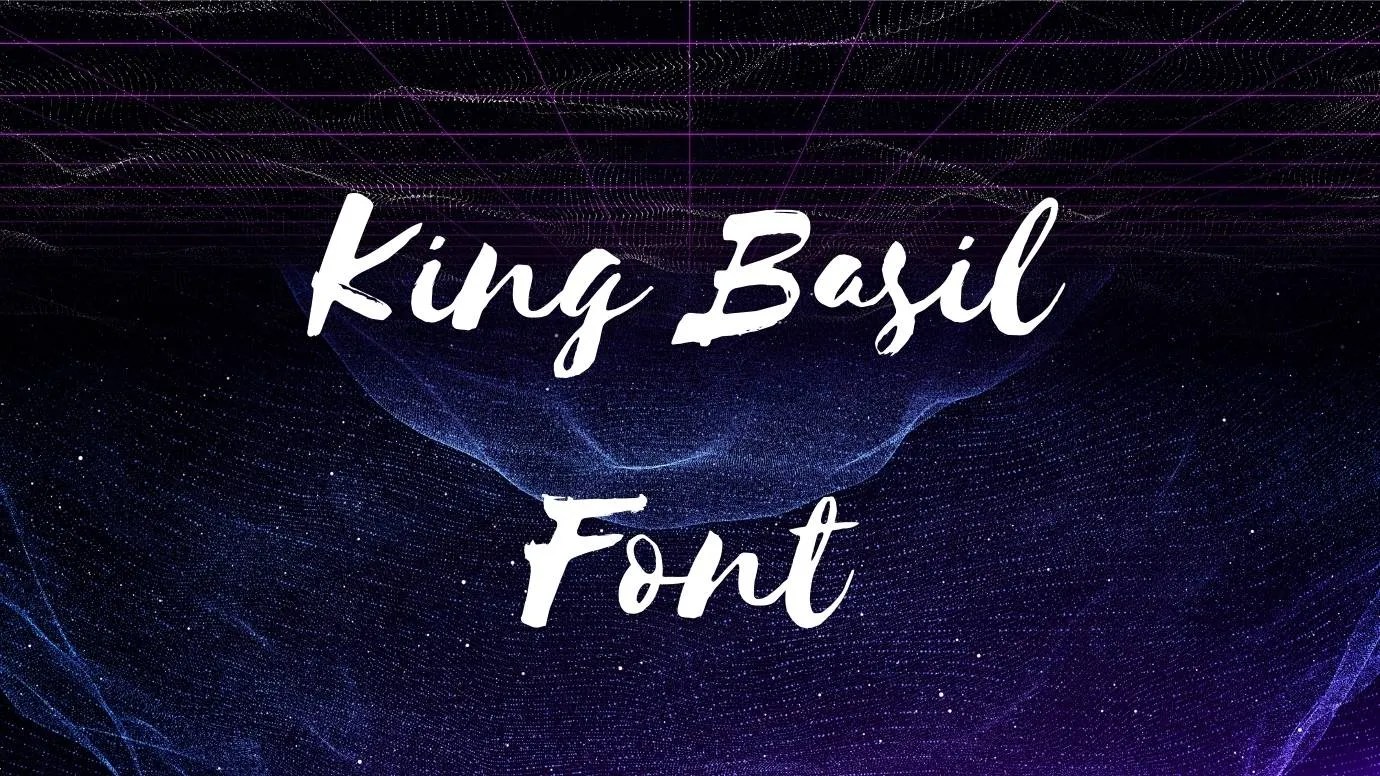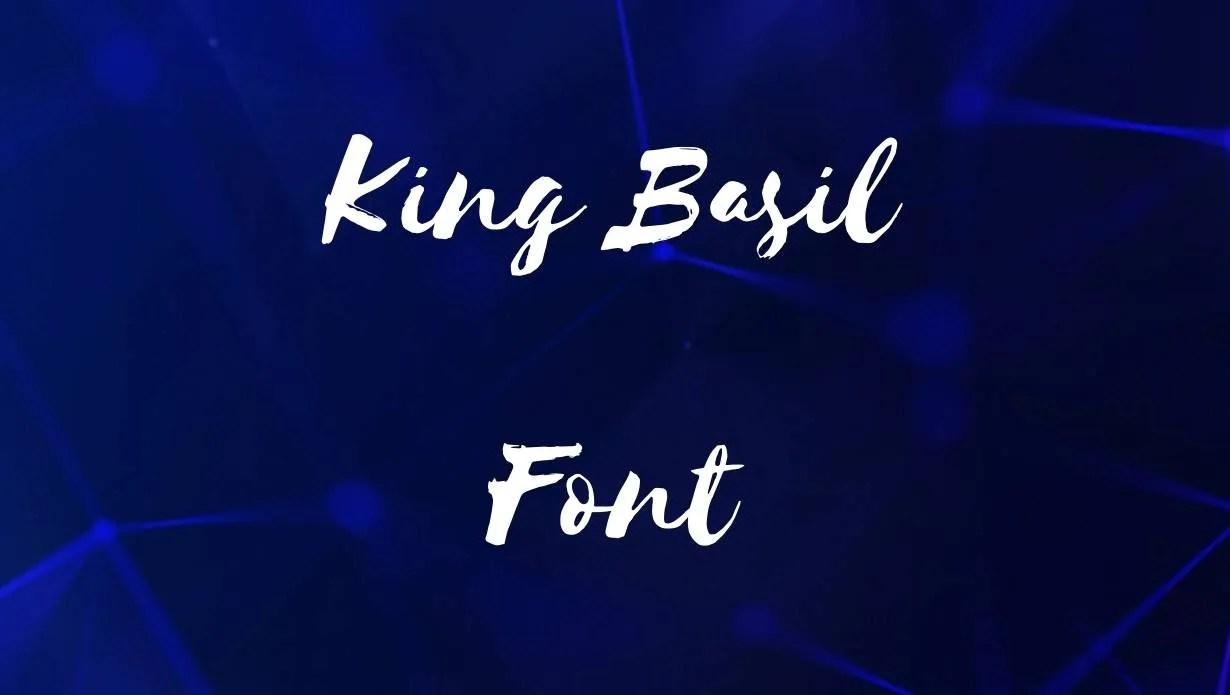
King Basil Lite Regular Font . King basil is the perfect font for all your fun designs. King basil lite is the perfect font for all your fun designs. The free king basil lite font is a beautiful handmade brush typeface created by the talented missy meyer. The free king basil lite font is a beautiful handmade brush typeface created by the talented missy meyer. King basil lite font family series mainly provide regular and other font styles. It includes both otf and ttf file formats, catering to various user. The font subfamily is regular. Click the download button to download the. You can also visit the author website, clicking here: Der font darf, laut angaben auf der. King basil’s feature set is impressive, ensuring versatility and creative freedom. View font details, character map, custom preview, downloads, file contents and more. The king basil font was designed by missy meyer.
The font subfamily is regular. You can also visit the author website, clicking here: Der font darf, laut angaben auf der. Click the download button to download the. The free king basil lite font is a beautiful handmade brush typeface created by the talented missy meyer. King basil’s feature set is impressive, ensuring versatility and creative freedom. King basil lite font family series mainly provide regular and other font styles. King basil is the perfect font for all your fun designs. The free king basil lite font is a beautiful handmade brush typeface created by the talented missy meyer. It includes both otf and ttf file formats, catering to various user.
King Basil Lite Regular Font Der font darf, laut angaben auf der. Click the download button to download the. King basil lite is the perfect font for all your fun designs. It includes both otf and ttf file formats, catering to various user. King basil’s feature set is impressive, ensuring versatility and creative freedom. King basil is the perfect font for all your fun designs. The font subfamily is regular. The free king basil lite font is a beautiful handmade brush typeface created by the talented missy meyer. King basil lite font family series mainly provide regular and other font styles. The king basil font was designed by missy meyer. You can also visit the author website, clicking here: View font details, character map, custom preview, downloads, file contents and more. The free king basil lite font is a beautiful handmade brush typeface created by the talented missy meyer. Der font darf, laut angaben auf der.
Aprender acerca 101+ imagen tipografia king basil gratis Viaterra.mx King Basil Lite Regular Font The free king basil lite font is a beautiful handmade brush typeface created by the talented missy meyer. View font details, character map, custom preview, downloads, file contents and more. It includes both otf and ttf file formats, catering to various user. Der font darf, laut angaben auf der. King basil’s feature set is impressive, ensuring versatility and creative freedom.. King Basil Lite Regular Font.
King Basil Lite (Free font) шрифт 79864 скачать бесплатно онлайн King Basil Lite Regular Font The king basil font was designed by missy meyer. The free king basil lite font is a beautiful handmade brush typeface created by the talented missy meyer. King basil’s feature set is impressive, ensuring versatility and creative freedom. The font subfamily is regular. King basil is the perfect font for all your fun designs. Click the download button to download. King Basil Lite Regular Font.
King Basil (1597) Calligraphy Font Bundles King Basil Lite Regular Font Click the download button to download the. Der font darf, laut angaben auf der. The free king basil lite font is a beautiful handmade brush typeface created by the talented missy meyer. King basil is the perfect font for all your fun designs. You can also visit the author website, clicking here: King basil lite is the perfect font for. King Basil Lite Regular Font.
King Basil Font Free Download King Basil Lite Regular Font Der font darf, laut angaben auf der. Click the download button to download the. View font details, character map, custom preview, downloads, file contents and more. The king basil font was designed by missy meyer. King basil is the perfect font for all your fun designs. You can also visit the author website, clicking here: The font subfamily is regular.. King Basil Lite Regular Font.
King Basil (1597) Calligraphy Font Bundles Wedding fonts King Basil Lite Regular Font View font details, character map, custom preview, downloads, file contents and more. The font subfamily is regular. King basil is the perfect font for all your fun designs. The free king basil lite font is a beautiful handmade brush typeface created by the talented missy meyer. The king basil font was designed by missy meyer. You can also visit the. King Basil Lite Regular Font.
King Basil Free Brush Font The Creative Bits King Basil Lite Regular Font King basil lite is the perfect font for all your fun designs. The king basil font was designed by missy meyer. Click the download button to download the. The free king basil lite font is a beautiful handmade brush typeface created by the talented missy meyer. King basil is the perfect font for all your fun designs. View font details,. King Basil Lite Regular Font.
199 King Basil with Alternates Embroidery Font Applique & Embroidery King Basil Lite Regular Font King basil’s feature set is impressive, ensuring versatility and creative freedom. King basil lite font family series mainly provide regular and other font styles. The font subfamily is regular. The free king basil lite font is a beautiful handmade brush typeface created by the talented missy meyer. View font details, character map, custom preview, downloads, file contents and more. The. King Basil Lite Regular Font.
Aprender acerca 101+ imagen tipografia king basil gratis Viaterra.mx King Basil Lite Regular Font The free king basil lite font is a beautiful handmade brush typeface created by the talented missy meyer. You can also visit the author website, clicking here: The font subfamily is regular. King basil lite is the perfect font for all your fun designs. King basil’s feature set is impressive, ensuring versatility and creative freedom. Click the download button to. King Basil Lite Regular Font.